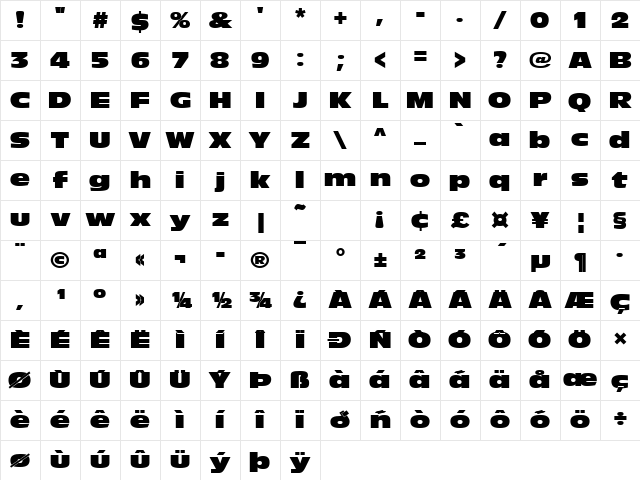
AntiqueOliNorPReg Regular
Design Context for AntiqueOliNorPReg
AntiqueOliNorPReg wears its vintage influences proudly, with letterforms that recall mid-century signage, classic packaging, and nostalgia-driven design.
Font Pairing: Combine AntiqueOliNorPReg with a simple slab or neutral sans - period-accurate companions reinforce the vintage feel without competing for attention.
Pro Tip: Lean into AntiqueOliNorPReg's period character by pairing it with aged paper textures, muted colour palettes, and vintage illustration styles.